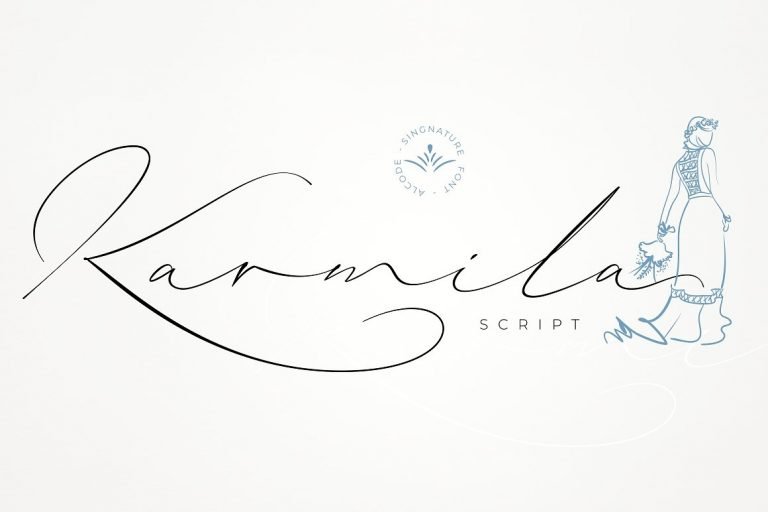
Karmila Signature Font
Hi designer. If you are looking for a signature typeface, this would be a good choice. Introducing Karmila Font! It is designed and shared by Alcode. Karmila Script is a decorative signature font, where you can achieve the feeling of handwritten letters. So that this font is perfect for your modern graphic design needs, such as social media content, wedding invitations, book covers, greeting cards, logos, branding, business cards and certificates, actually for any design work that requires a formal or luxurious impression.